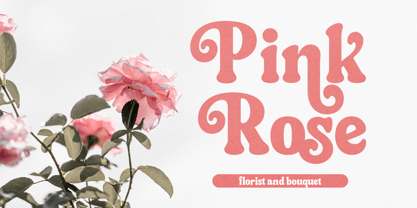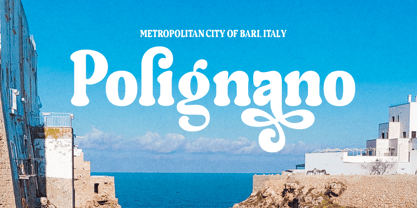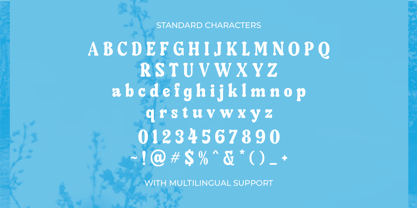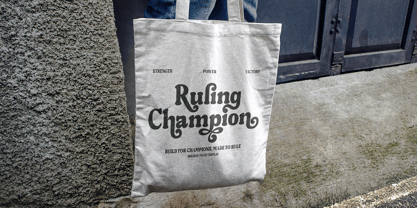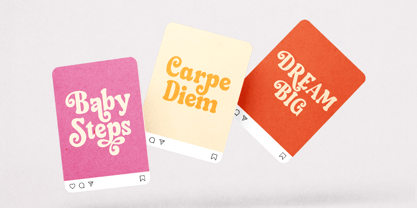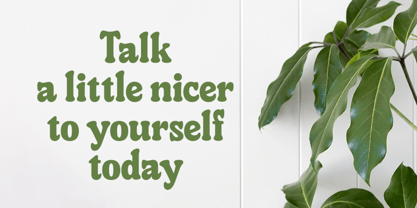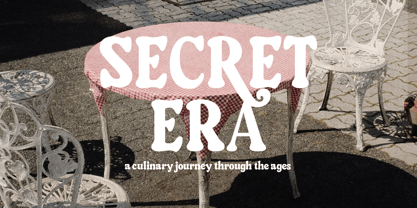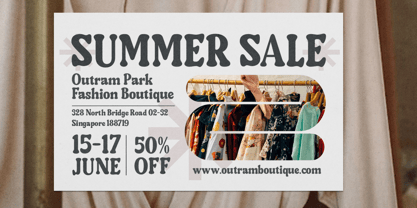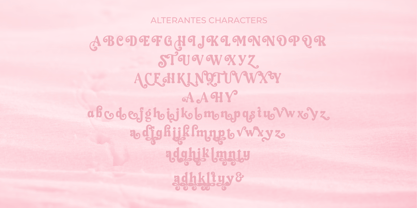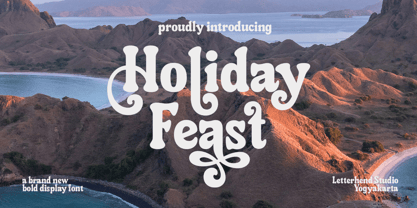
Holiday Feast
by Letterhend
The Holiday Feast Font Family was designed by Hendry Juanda and published by Letterhend. Holiday Feast contains 2 styles and family package options. More about this family
Holiday Feast is a vibrant and charming display font that brings a festive touch to any design. With bold, curvy letterforms and whimsical swashes, it exudes warmth, joy, and a nostalgic yet modern feel. Perfect for holiday projects, branding, invitations, packaging, posters, and social media, this font adds personality and elegance to your work. Whether you're designing for a cozy winter theme, a tropical getaway, or a lively celebration, Holiday Feast delivers a unique and eye-catching style. Features : Uppercase & lowercase Numbers and punctuation Alternates & Ligatures Multilingual Support PUA encoded
Designers: Hendry Juanda
Foundry: Letterhend